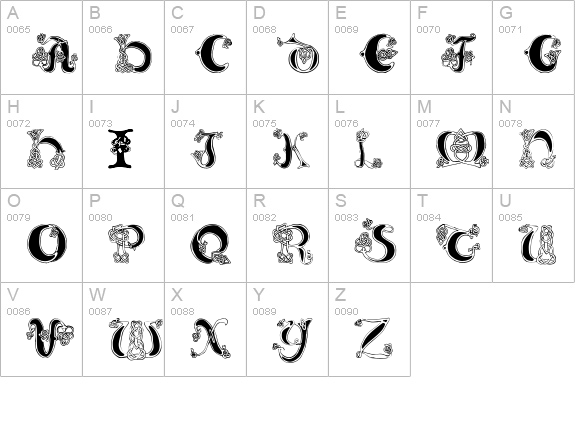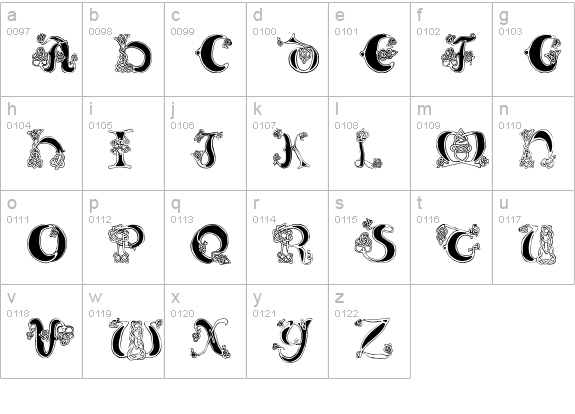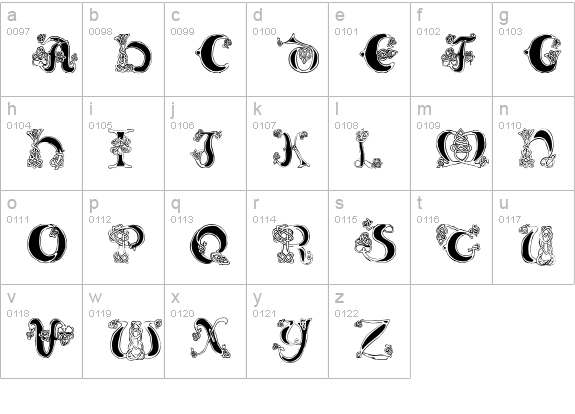
Celtic Knot Font Details
The Celtic Knot font is a stunning and intricate typeface inspired by traditional Celtic designs. With its beautifully intertwined lines and loops, this font exudes a sense of ancient craftsmanship and elegance. The Celtic Knot font is perfect for adding a touch of Celtic charm to your designs, whether you're creating a logo, poster, or invitation. Best of all, this font is available for free download at FontsMarket.com. Simply visit the website to access this unique and captivating font for your creative projects. Add a touch of Celtic artistry to your designs with the freely available Celtic Knot font today!